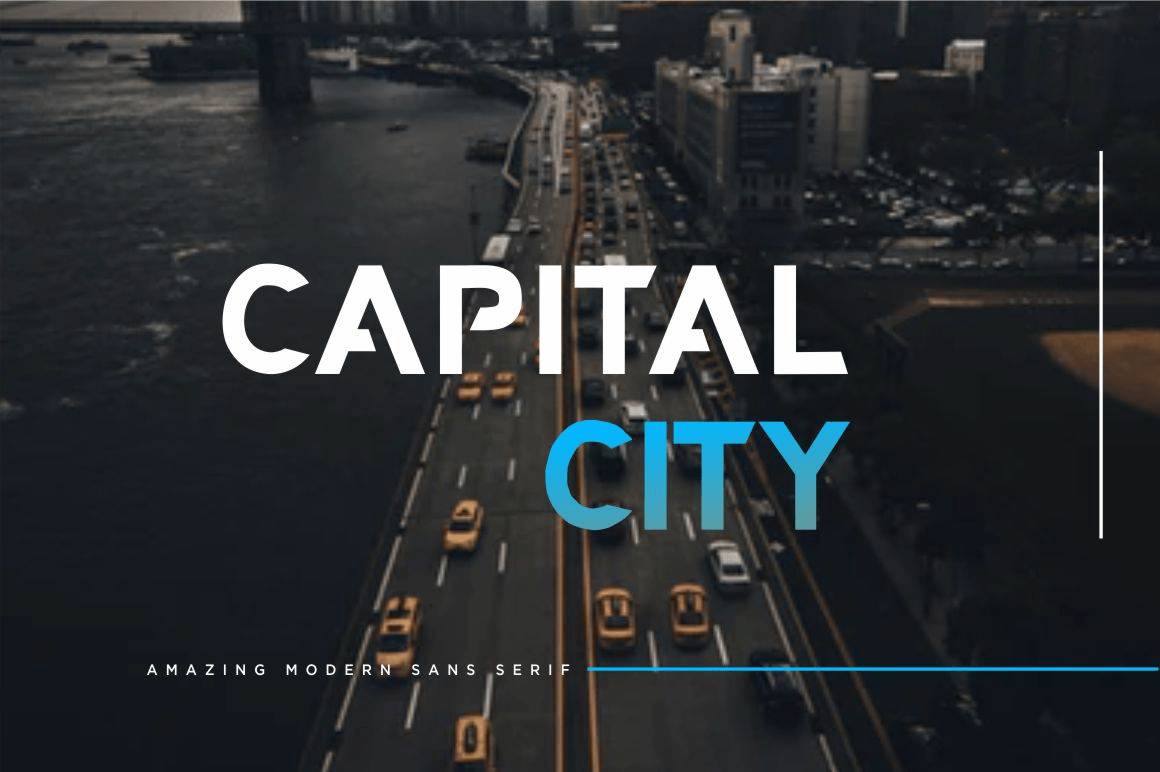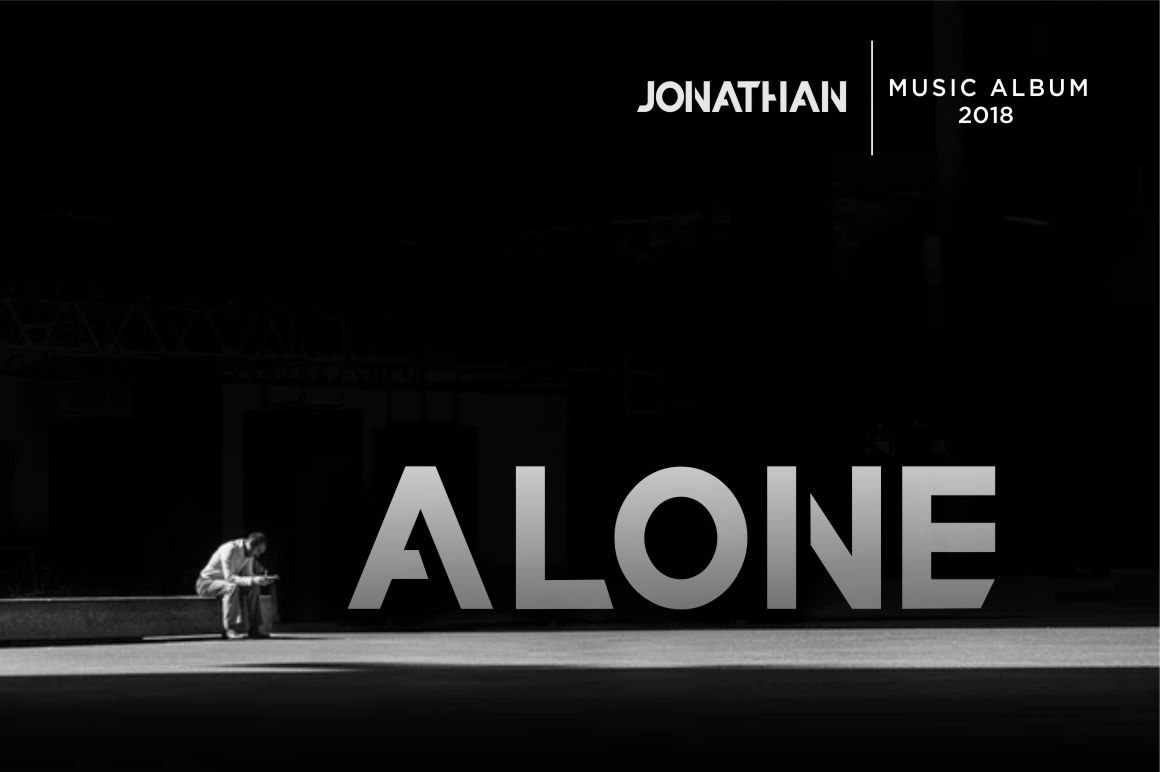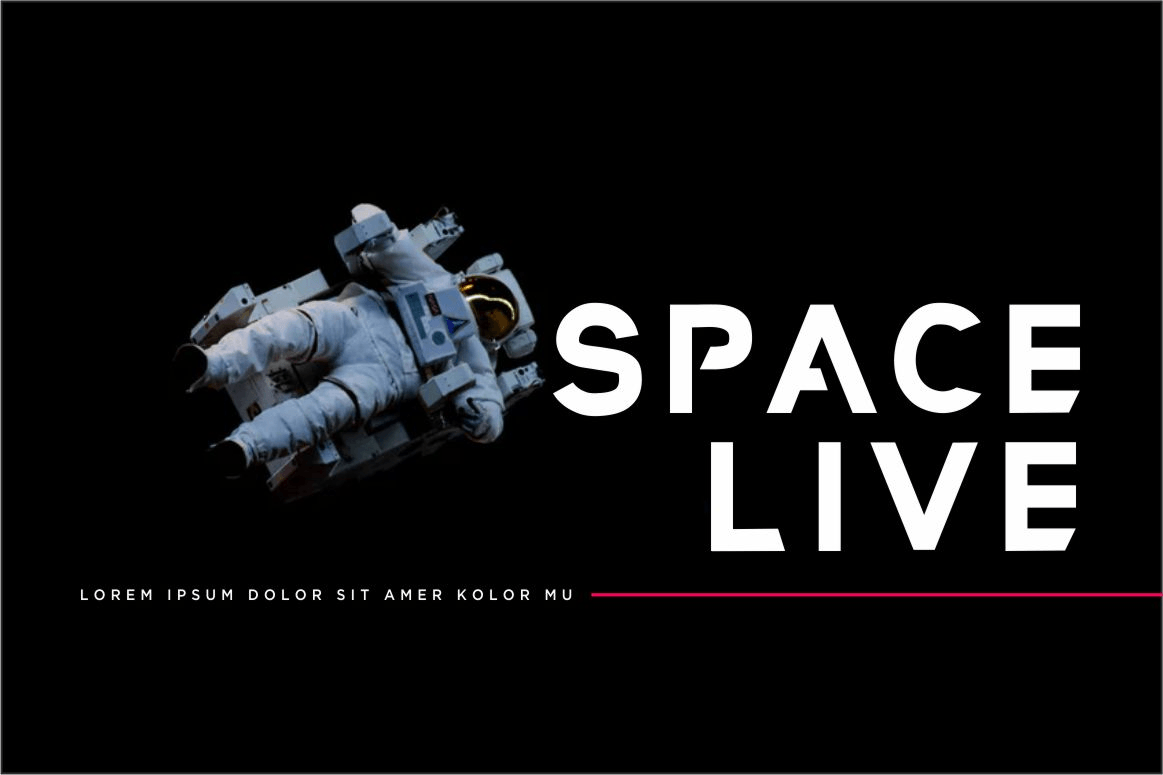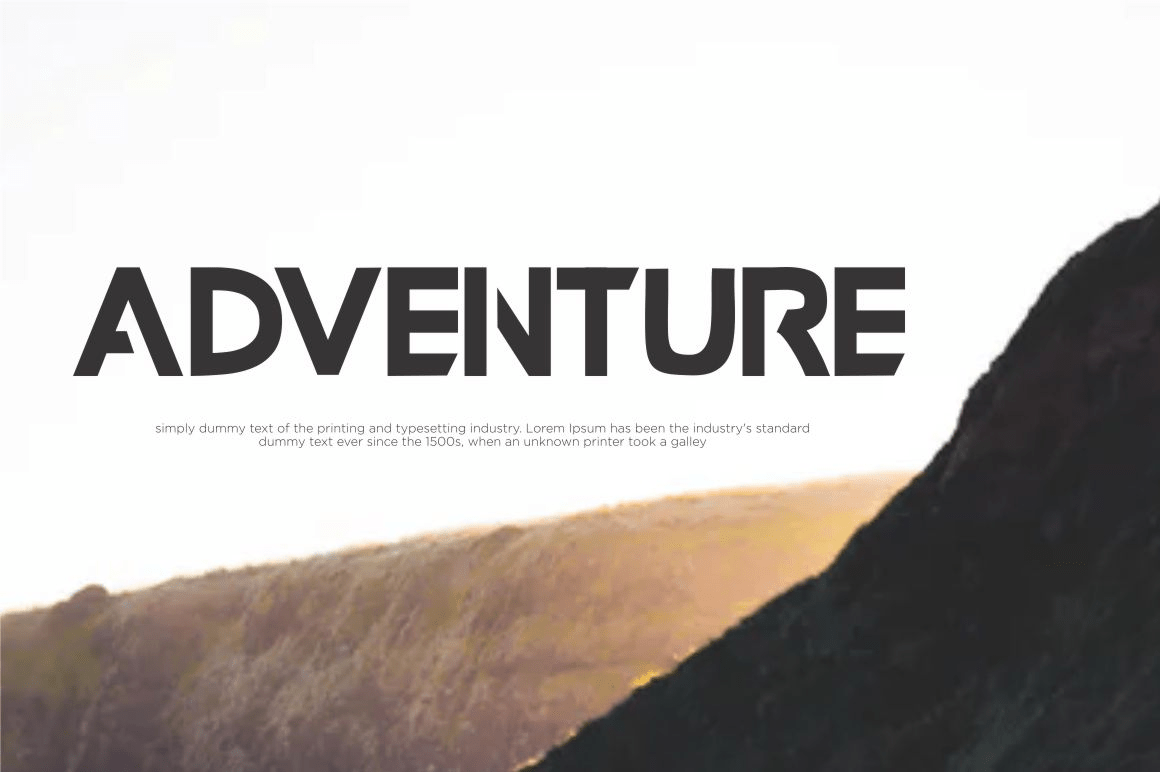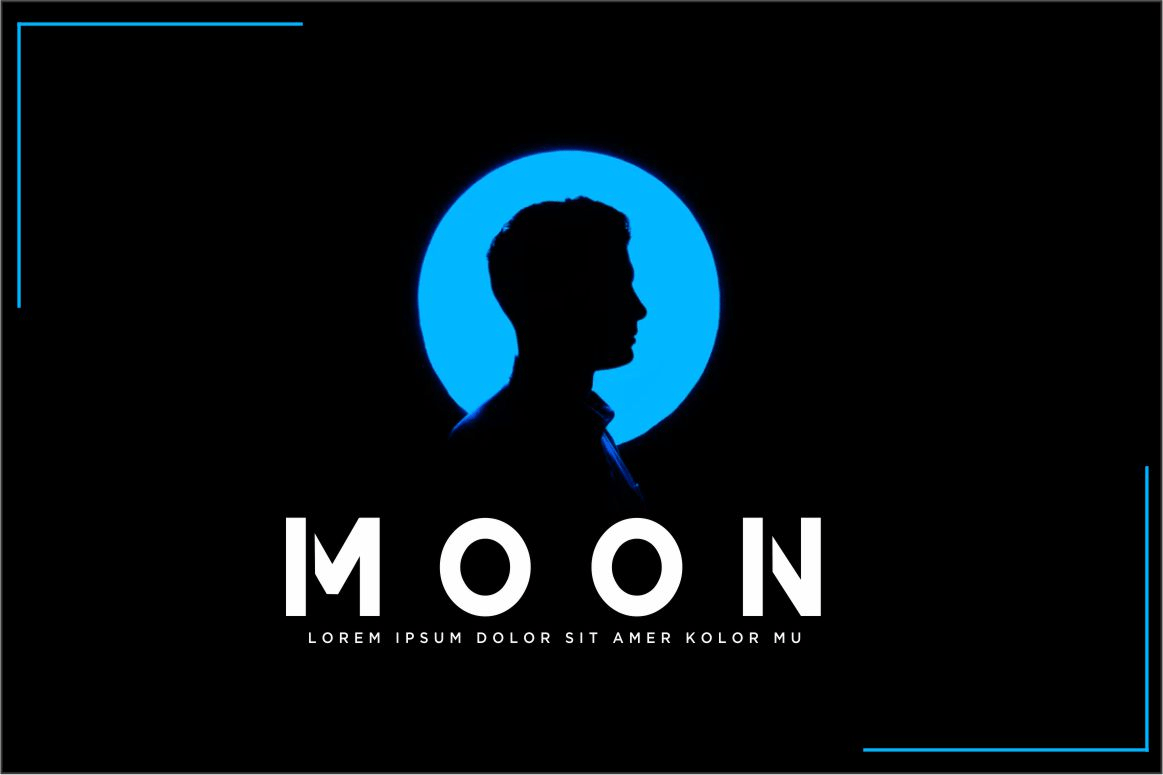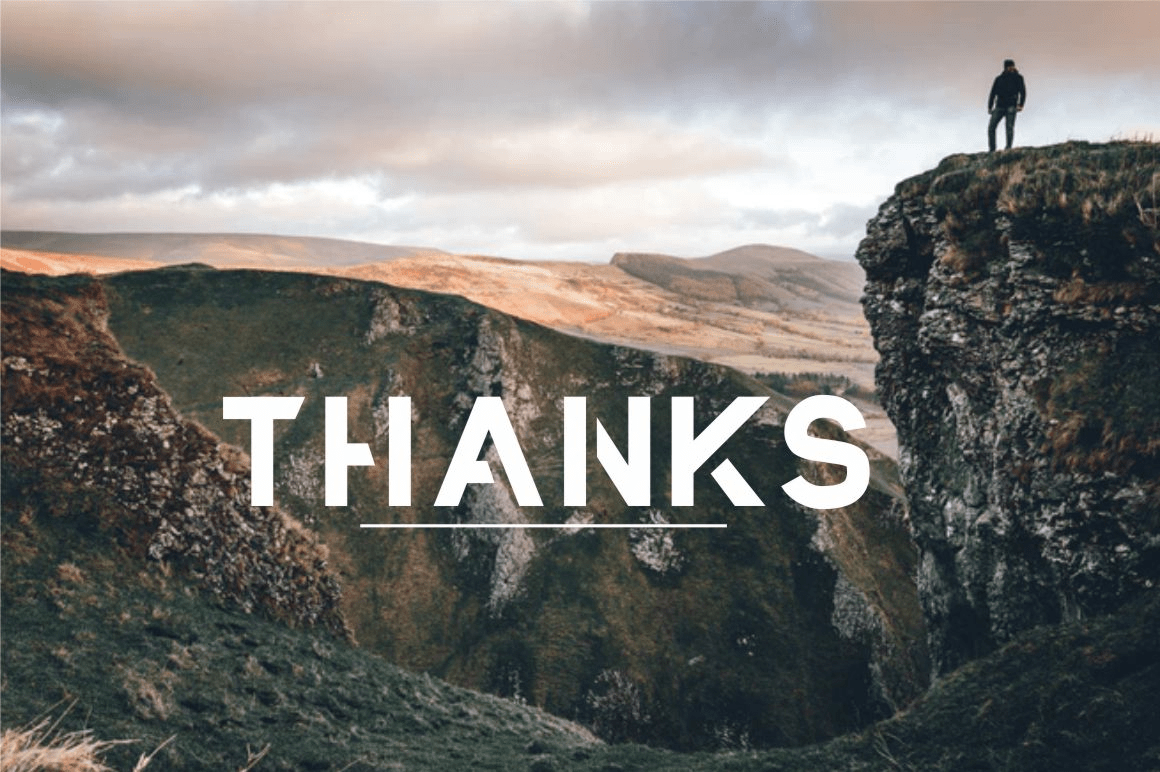
Kilton
Font Family by Eldertype Studio
KILTON FONT is a modern sans-serif typeface. It can be used as body text or as a display font. With inspiration from technology, geometry and minimalism, Kilton suitable font logo, magazine header, powerpoint, branding, brochure, card, logo design an other
Perfectly suited on print/screen; it can be used freely for logotypes, e-books and mobile applications and is especially food for headlines, banners, posters, web-sites, magazines, etc.